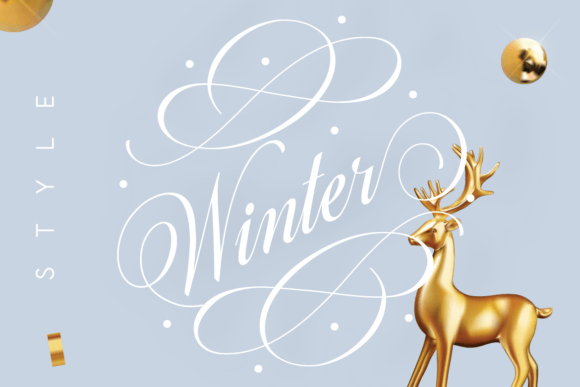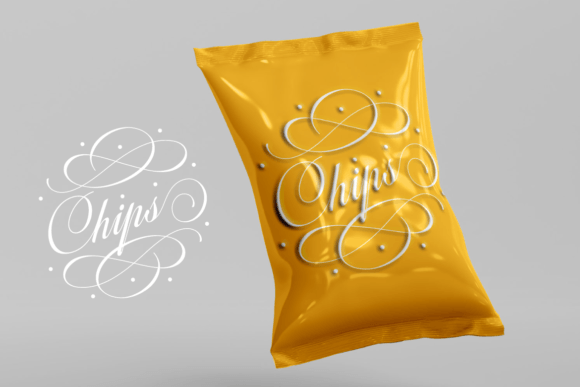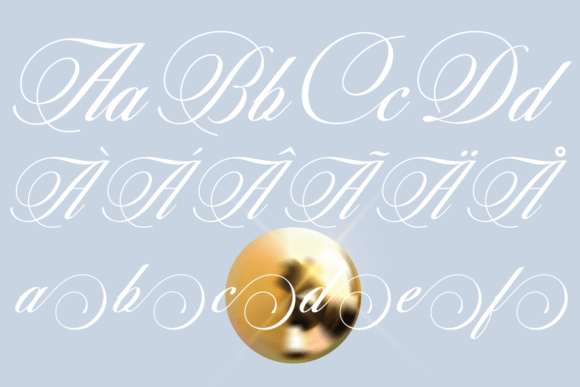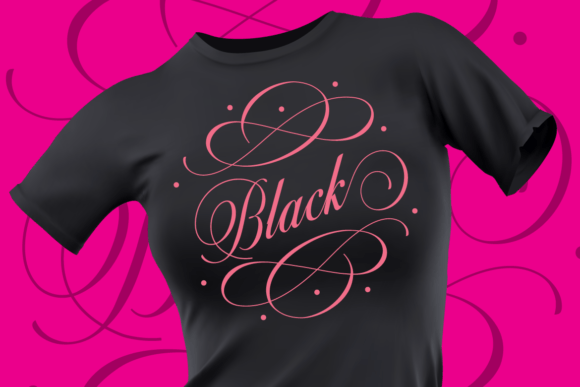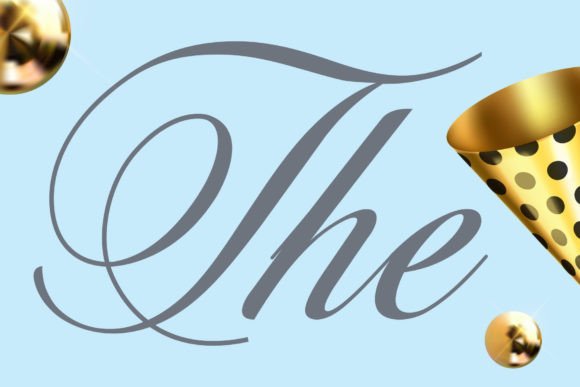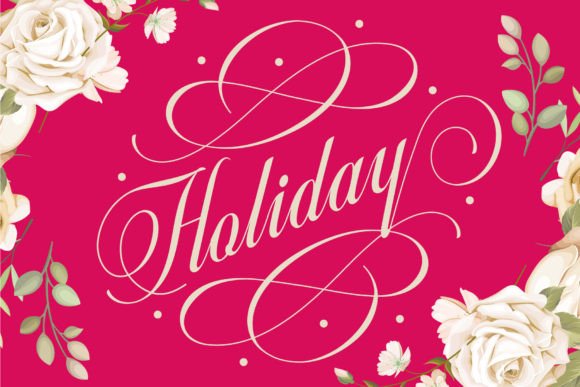
Cruate Font: Elevate Your Designs with Elegant Calligraphy
Are you a designer or crafter looking to add a touch of elegance and sophistication to your creations? Look no further than the Cruate Font, a stunning calligraphy font that can help you create beautiful compositions with ease. In this article, we’ll explore the features and benefits of the Cruate Font, and show you how to make the most of this versatile and stylish font.
What is Cruate Font?
Cruate Font is a calligraphy font designed to help designers and crafters create stunning visual elements for a wide range of projects. Whether you’re working on wedding invitations, cards, quotes, greeting cards, logos, business cards, or any other design that needs a customized touch, Cruate Font is the perfect choice. Its elegant and flowing script style is sure to impress, and its versatility makes it easy to use in a variety of contexts.
Key Features of Cruate Font
So what sets Cruate Font apart from other fonts? Here are some of its key features:
- PUA Encoding: Cruate Font is PUA (Private Use Area) encoded, which means that you can access all of the glyphs and swashes with ease. This makes it simple to customize your designs and add unique touches.
- Ligatures: The font features beautiful ligatures, which are decorative elements that connect letters and words. These ligatures can be used to create stunning visual effects and add a touch of elegance to your designs.
- Glyphs Category: The font includes a range of glyphs and swashes that can be used to add decorative elements to your designs. These glyphs can be accessed easily through the Glyphs category.
How to Use Cruate Font
Using Cruate Font is easy, even if you’re new to calligraphy fonts. Here’s a step-by-step guide to get you started:
- Type Your Text: Simply type your text into your design software, using the equal signs (=) to create the main decor element. Alternatively, you can type any text and then add the decor elements in the right position.
- Move Decor Elements: Move the decor elements into position, making sure not to change the size of the text. This is important, as changing the size of the text can affect the creation of the ligatures.
- Choose from Glyphs Category: If you want to add more decorative elements to your design, you can choose from the Glyphs category. This is a great way to add a unique touch to your designs and make them stand out.
Benefits of Using Cruate Font
So why should you choose Cruate Font for your designs? Here are just a few benefits:
- Elegant and Sophisticated: Cruate Font is a stunning calligraphy font that adds an elegant and sophisticated touch to any design.
- Versatile: The font is versatile and can be used in a wide range of contexts, from wedding invitations to business cards.
- Easy to Use: Cruate Font is easy to use, even for those new to calligraphy fonts. The PUA encoding and Glyphs category make it simple to access and customize the font.
In conclusion, Cruate Font is a stunning calligraphy font that can help designers and crafters create beautiful compositions with ease. Its elegant and flowing script style, combined with its versatility and ease of use, make it a must-have for anyone looking to add a touch of elegance and sophistication to their designs. Whether you’re working on wedding invitations, cards, quotes, or any other design, Cruate Font is the perfect choice.